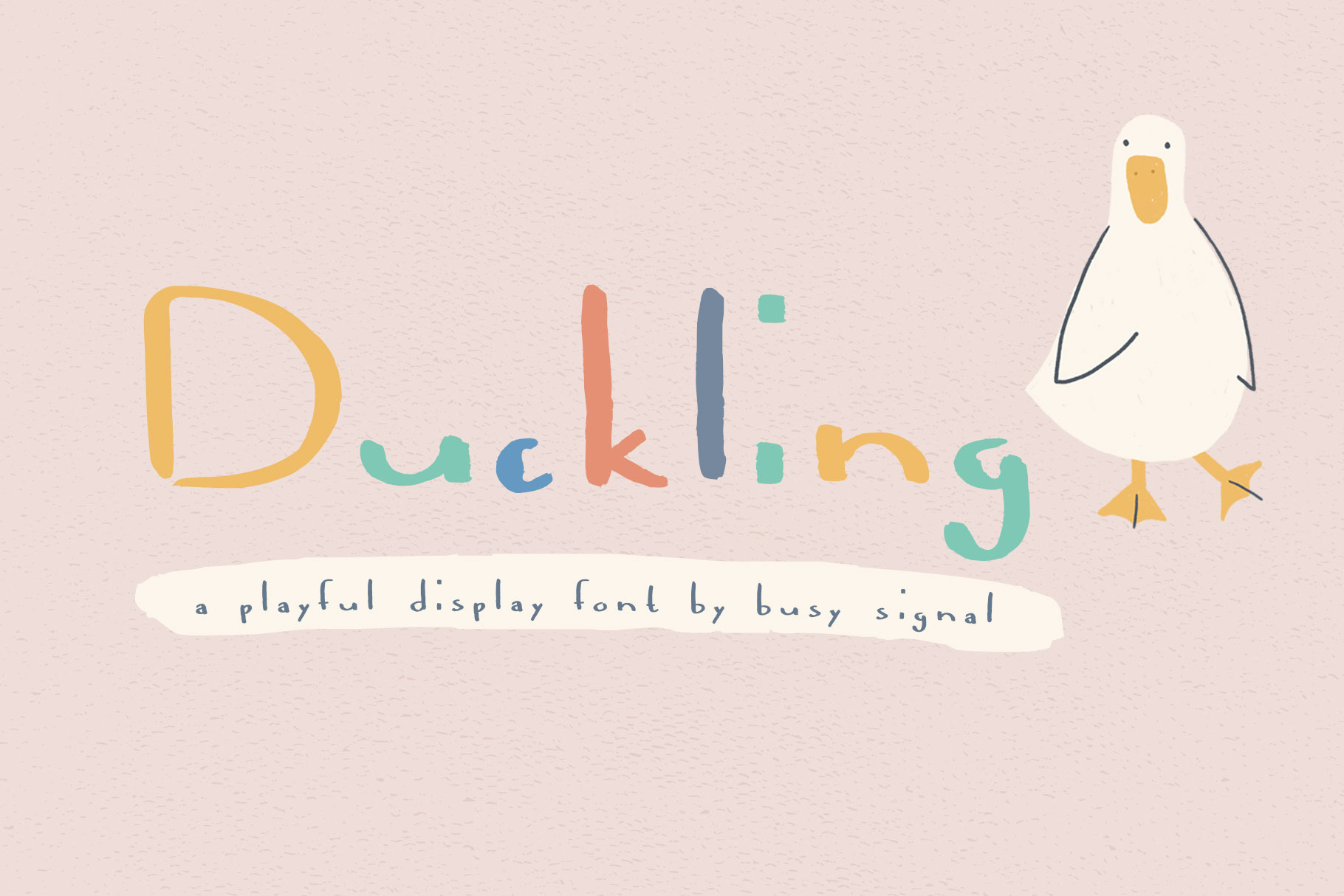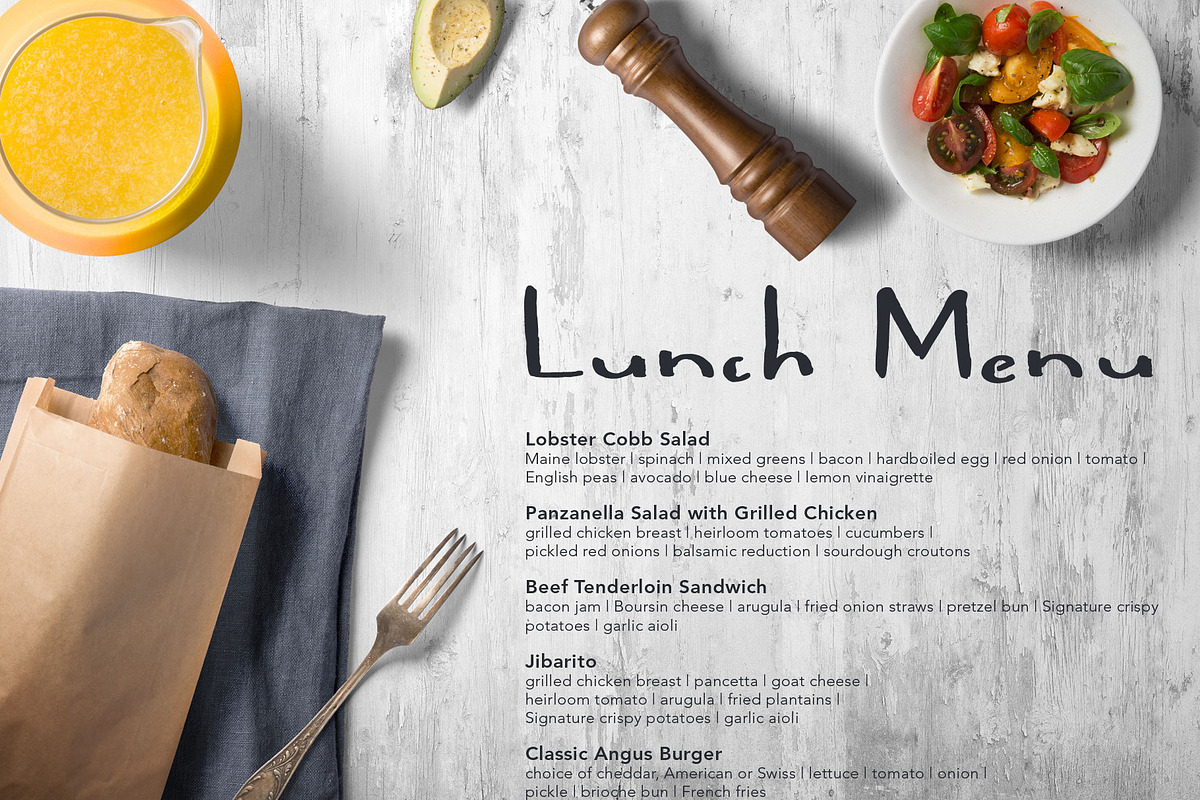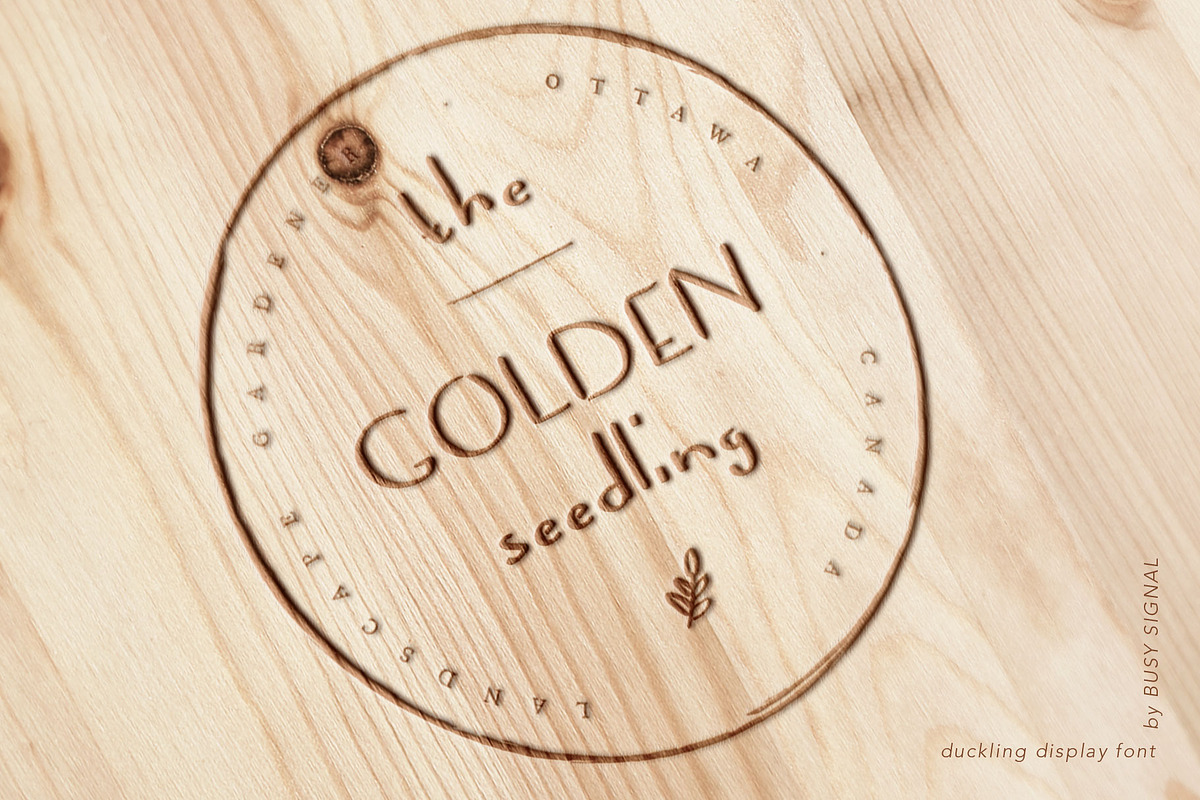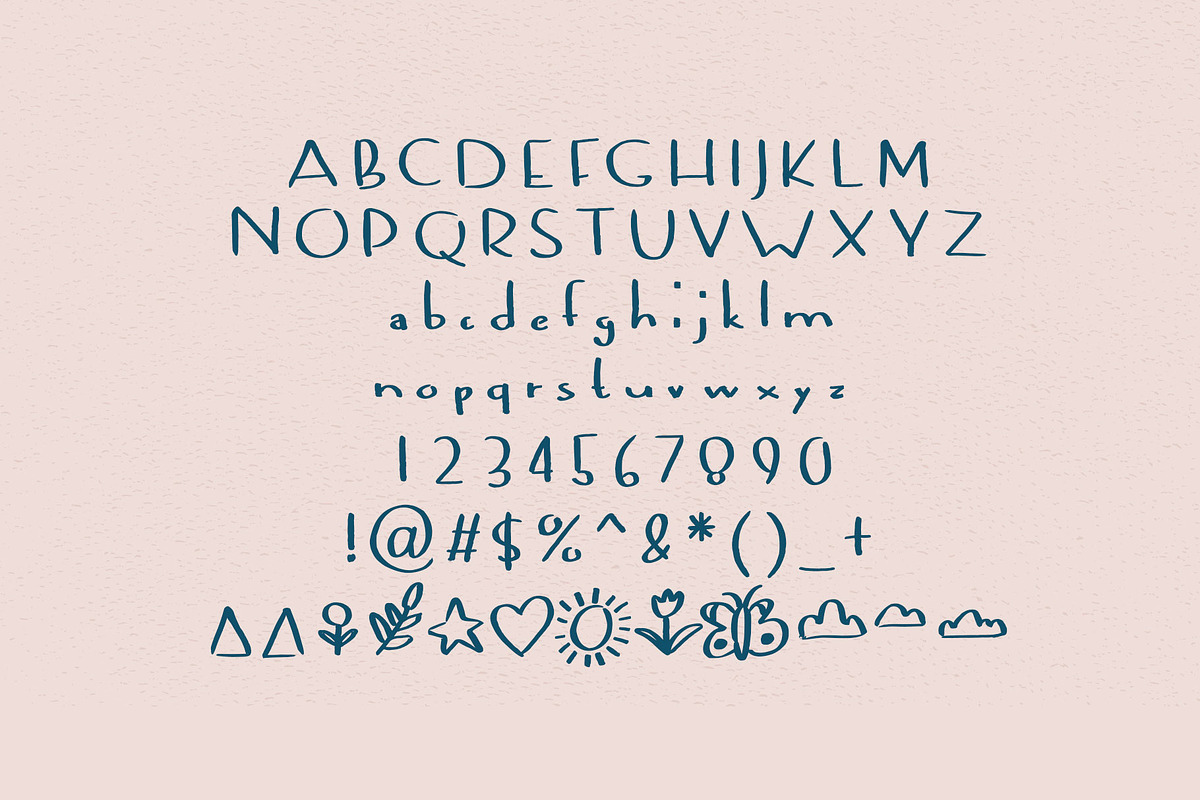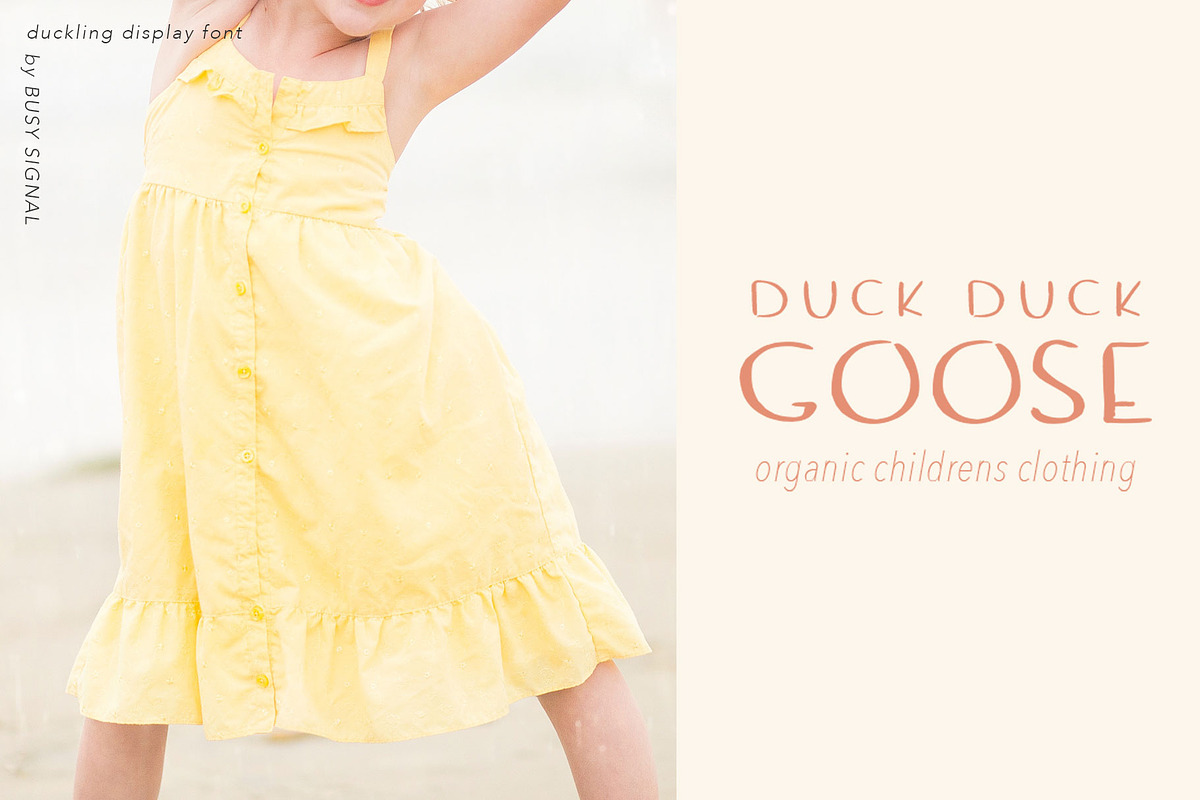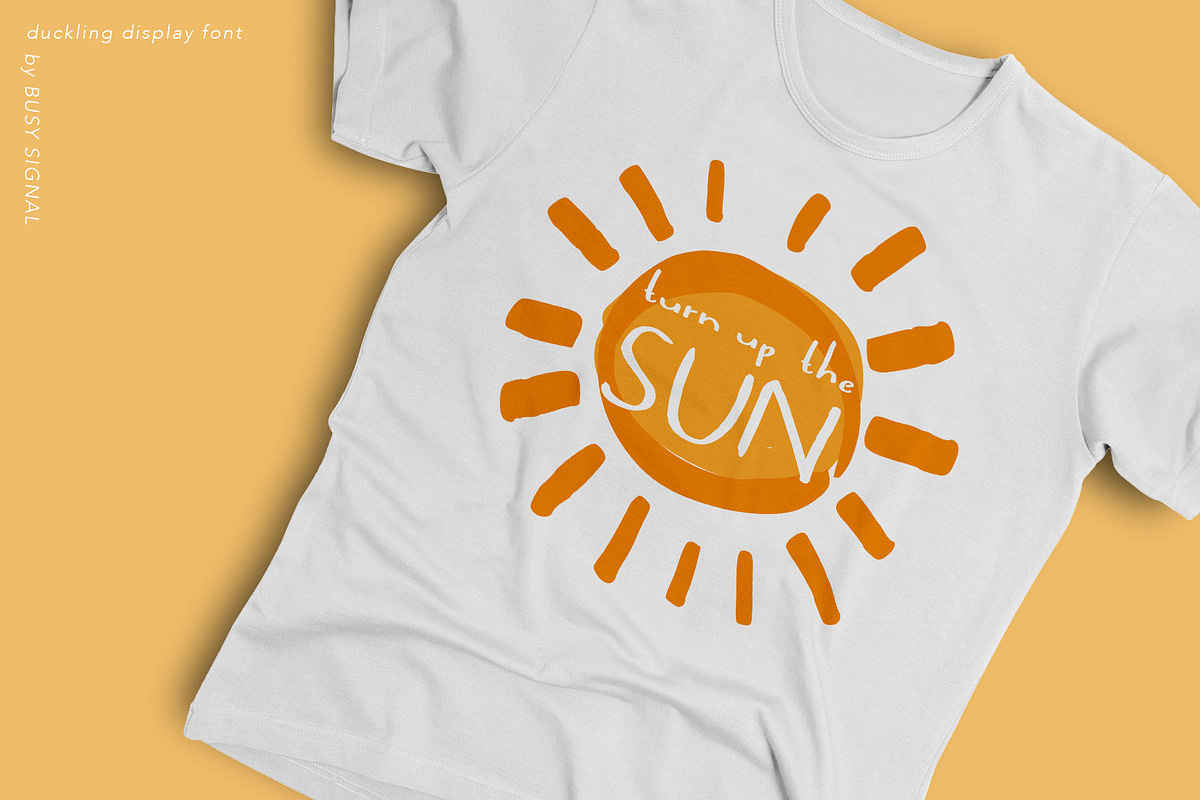
Duckling | Playful Display Font
Duckling is a silly and sweet display font with a textured, happy look. Perfect for kid's products, greeting cards, logos and headlines.